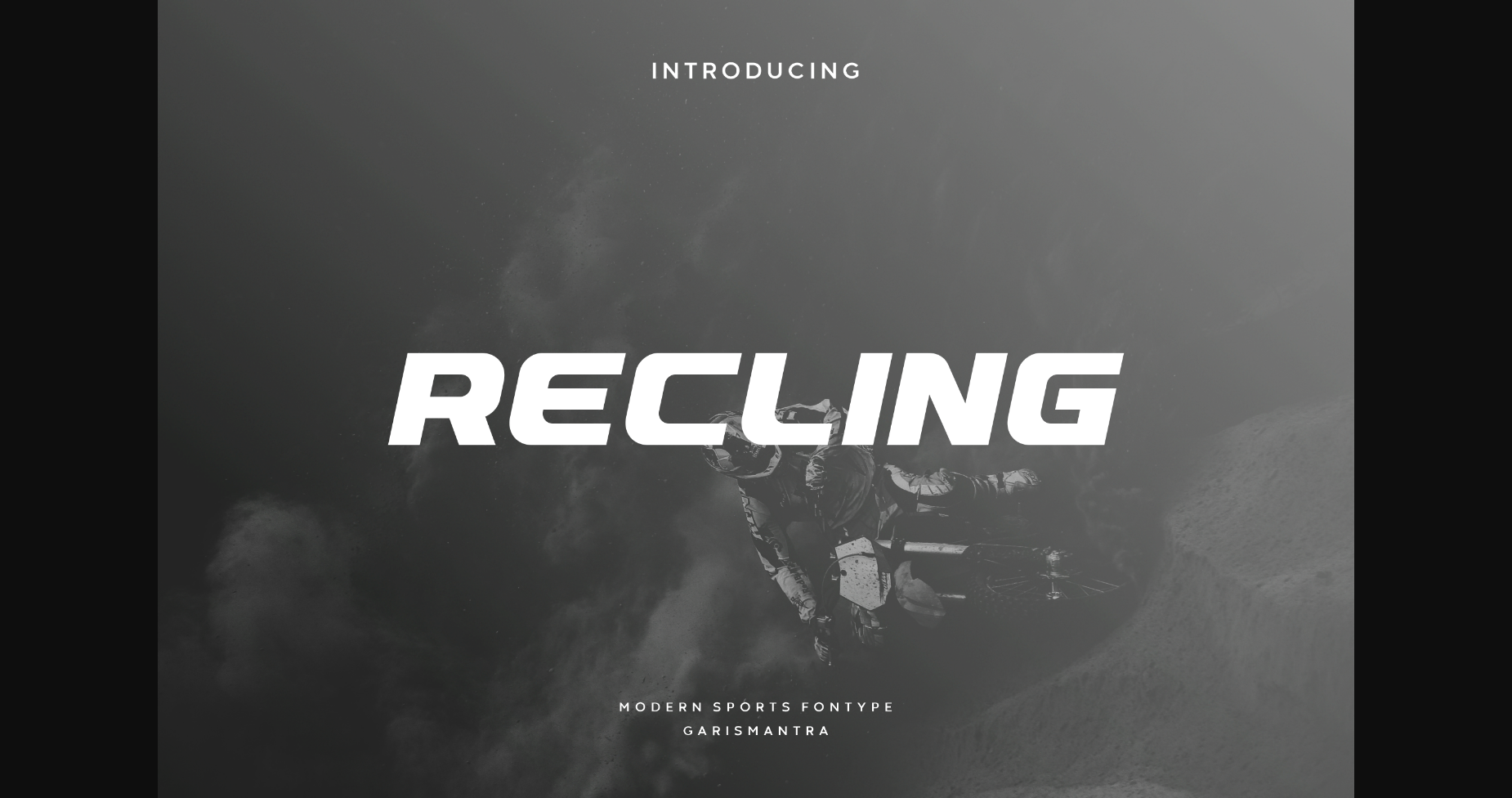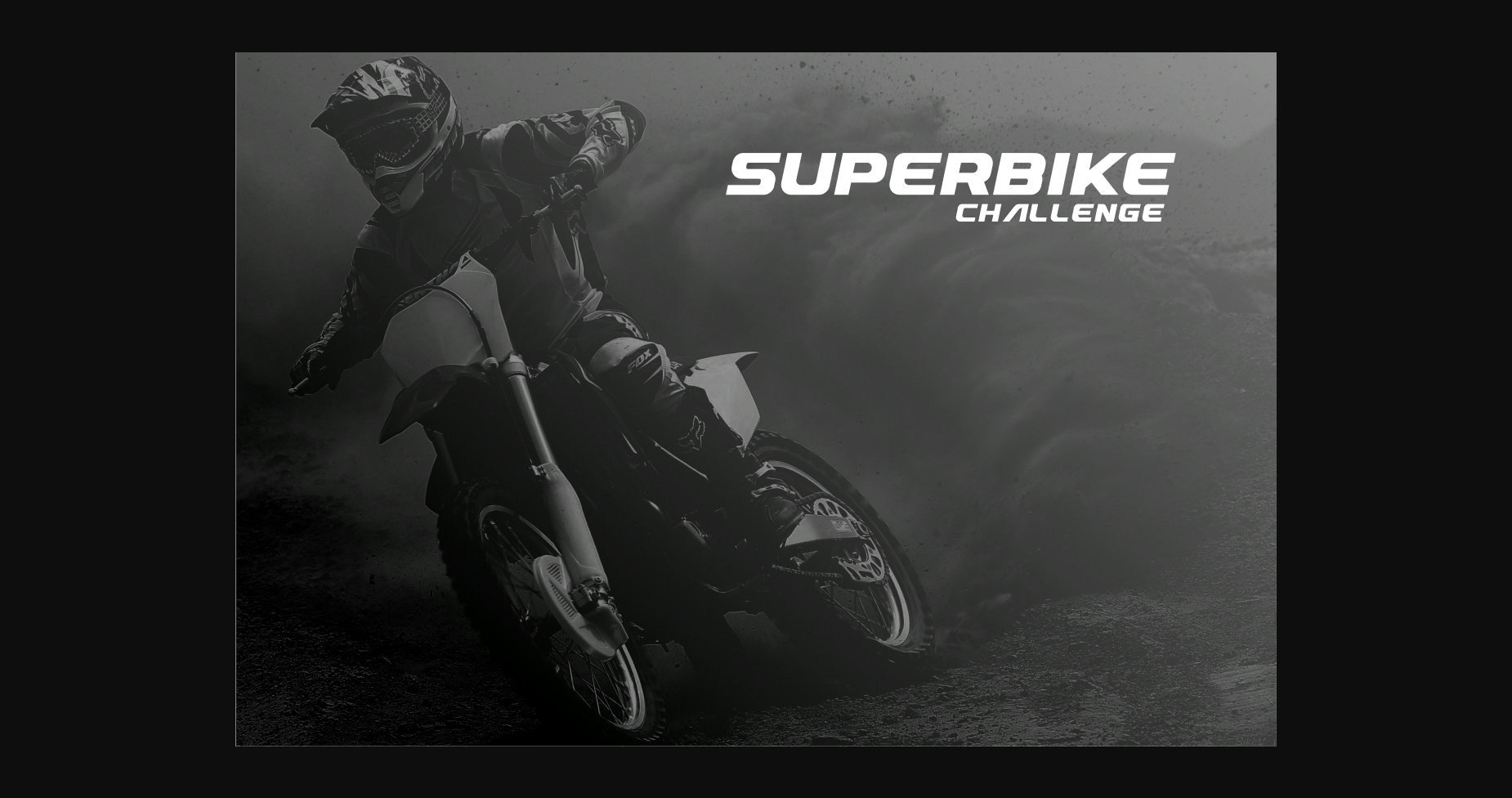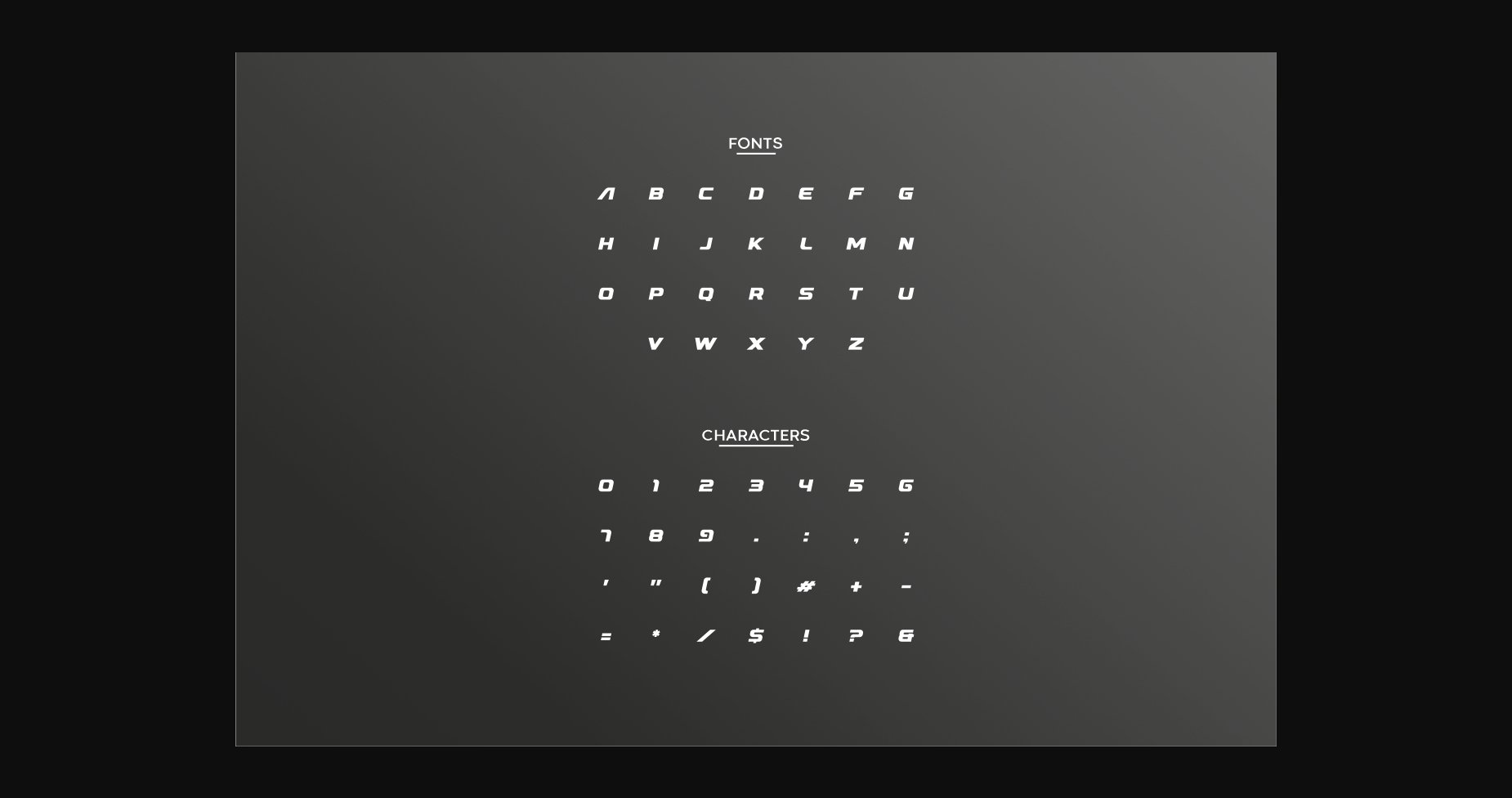
About Recling Font
Recling is a stylish and cool sans-serif font. Masterfully designed to become a true favorite, this font has the potential to bring each of your creative ideas to the highest level!